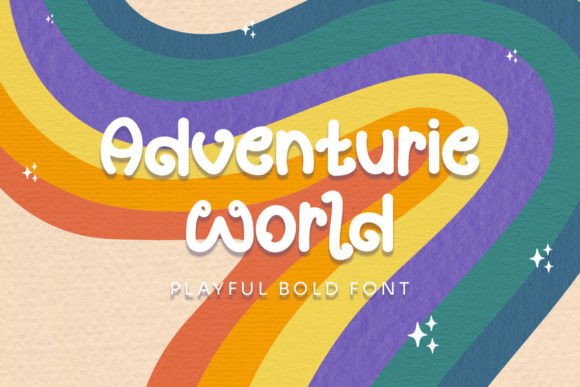
Embark on an enchanting adventure with Adventurie World, a remarkable display font that will ignite your creativity and leave your designs bursting with life. This exuberant font boasts a symphony of rounded and bubbly letterforms, each meticulously crafted to evoke a sense of pure joy and happiness. Picture perfect for birthday cards, invitations, and any whimsical design project that demands a touch of playful brilliance.
With Adventurie World, your words take center stage, transforming into captivating works of art. Its charming personality is bound to leave a lasting impression, making it the perfect choice for logos, branding, and packaging that seeks to stand out from the crowd. Unleash your imagination and let your designs soar with this font's infectious energy.
Journey into a world of limitless possibilities with Adventurie World, the font that speaks to your adventurous spirit. Its distinctive style adds a touch of whimsy to social media posts, flyers, and posters, ensuring your messages shine with individuality. Dive into the realm of creativity and let this font's playful spirit guide you towards design masterpieces that captivate and inspire.
Unleash your artistic flair and explore the boundless potential of Adventurie World, the font that fuels your creative fire. Its vibrant and cheerful nature makes it the perfect choice for digital art, illustrations, and web design. Infuse your digital creations with a burst of color and personality, leaving your audience mesmerized by the sheer brilliance of your designs.
Step into a world of wonder with Adventurie World, a font that transforms your designs into captivating works of art. Embrace the playful spirit and infectious charm of this remarkable creation, allowing it to elevate your designs to new heights of creativity and joy. Dive headfirst into the realm of imagination and watch as your projects come to life, captivating and enchanting all who lay their eyes upon them.